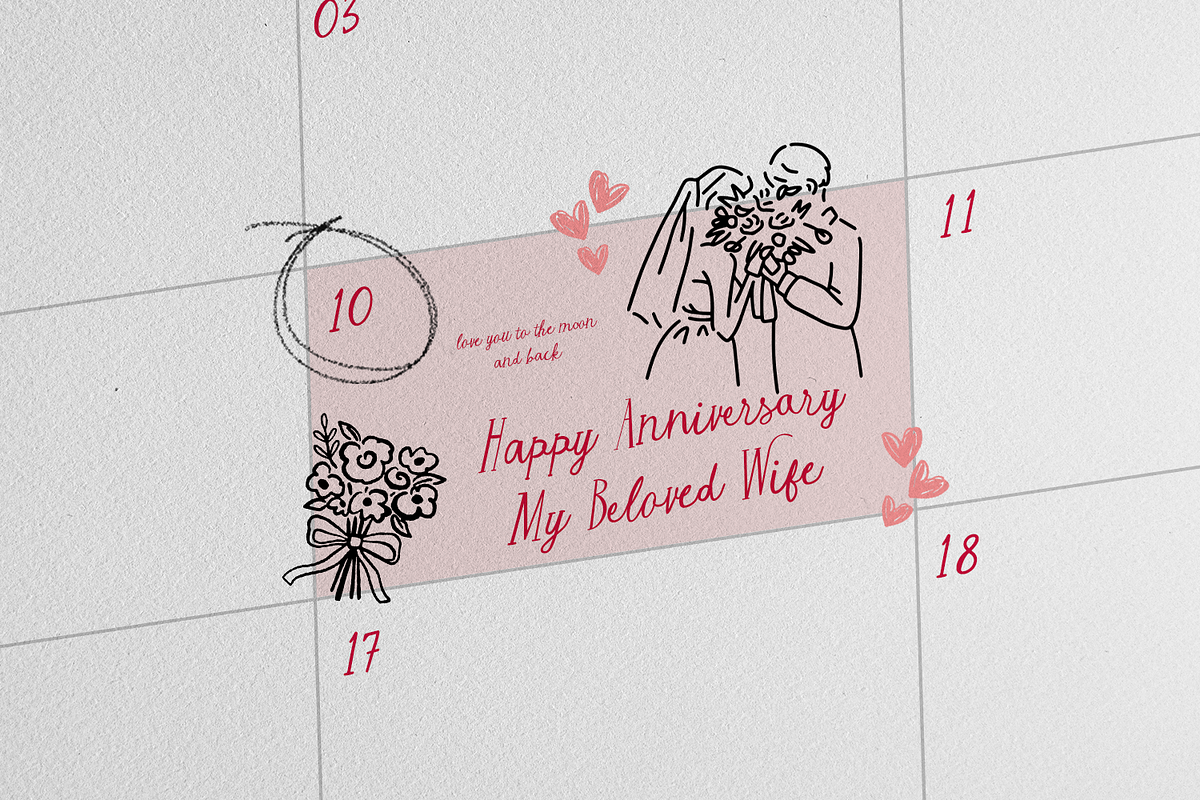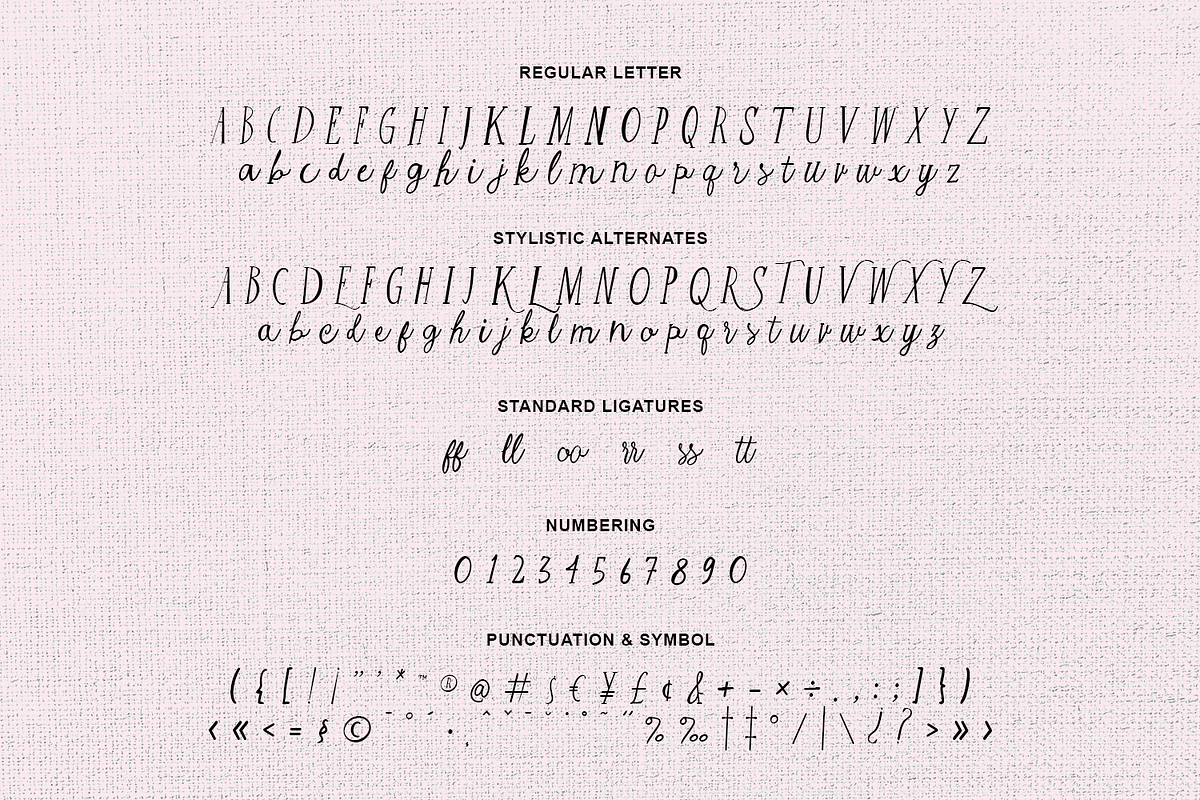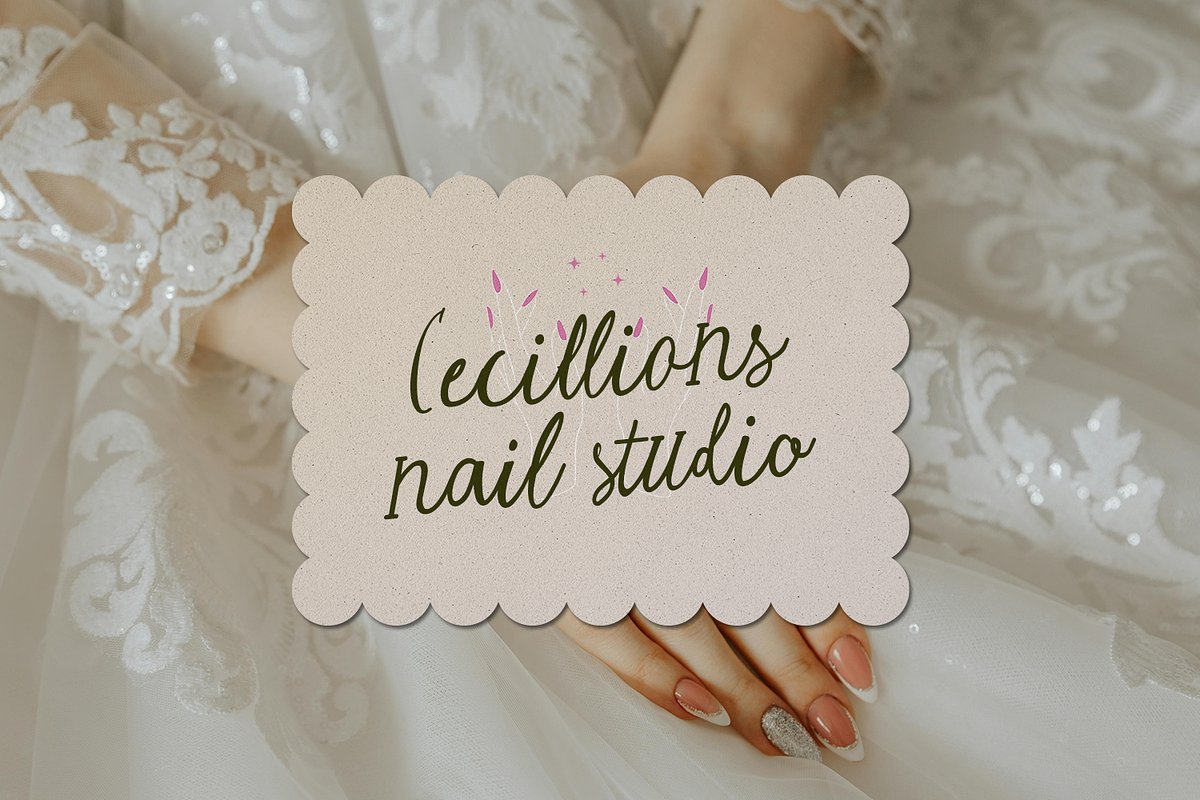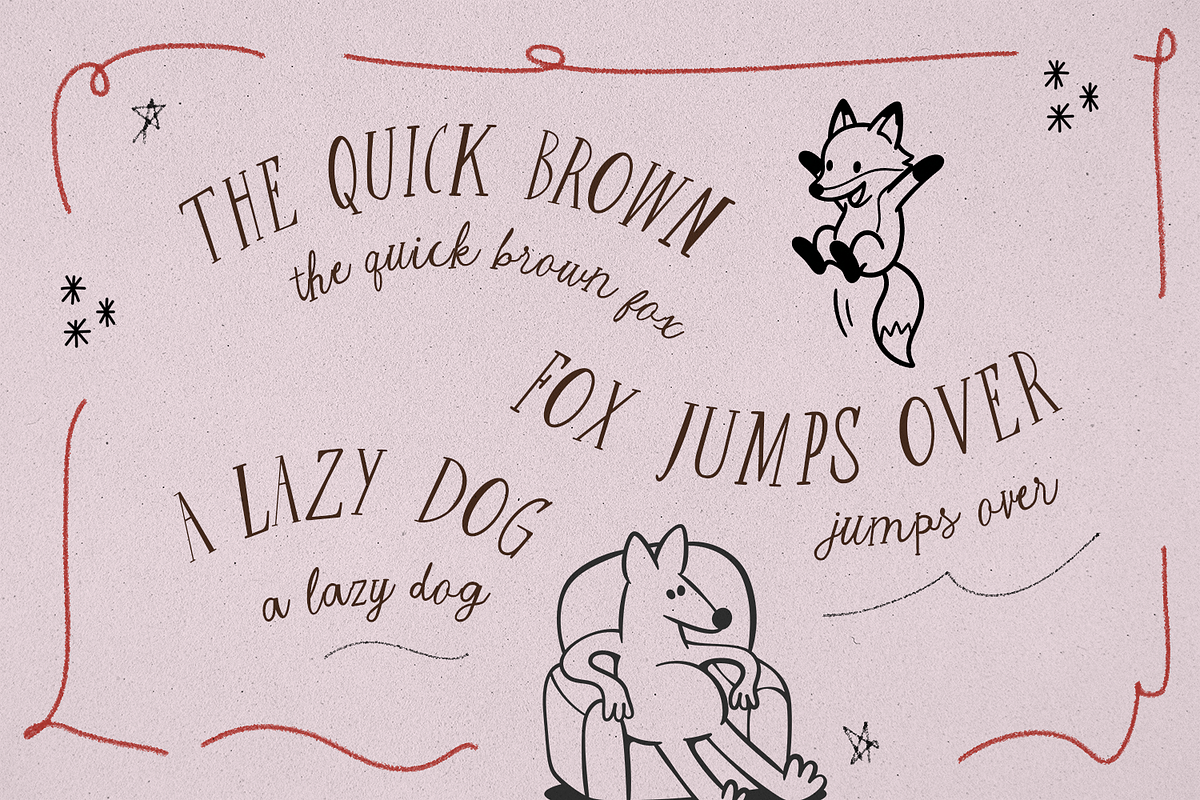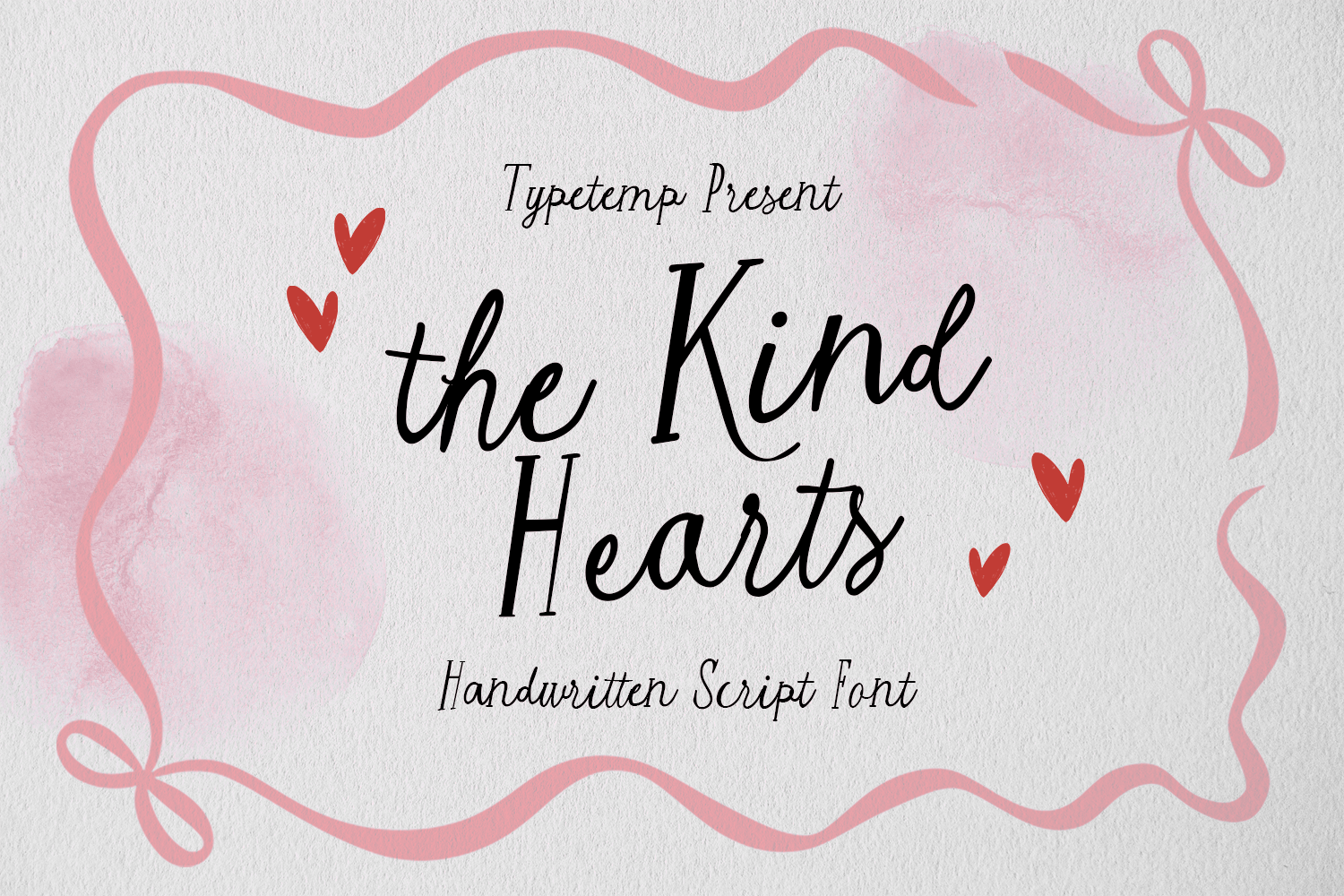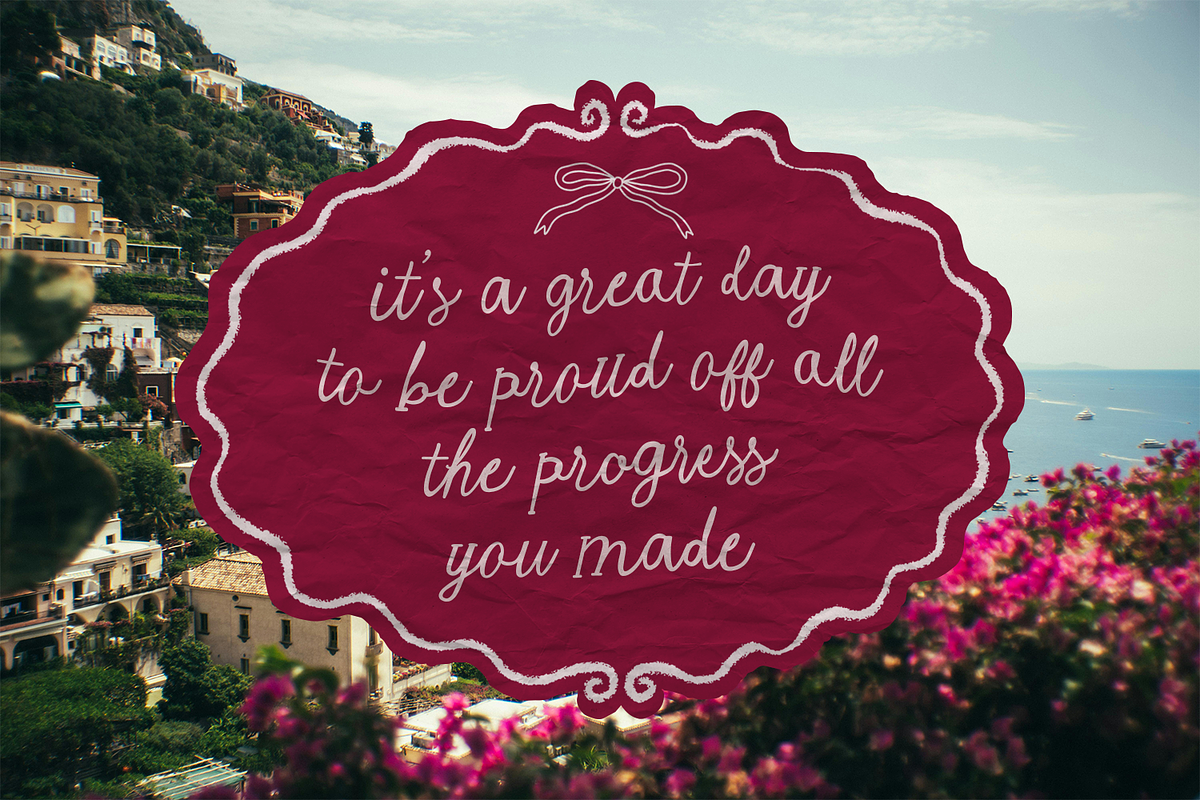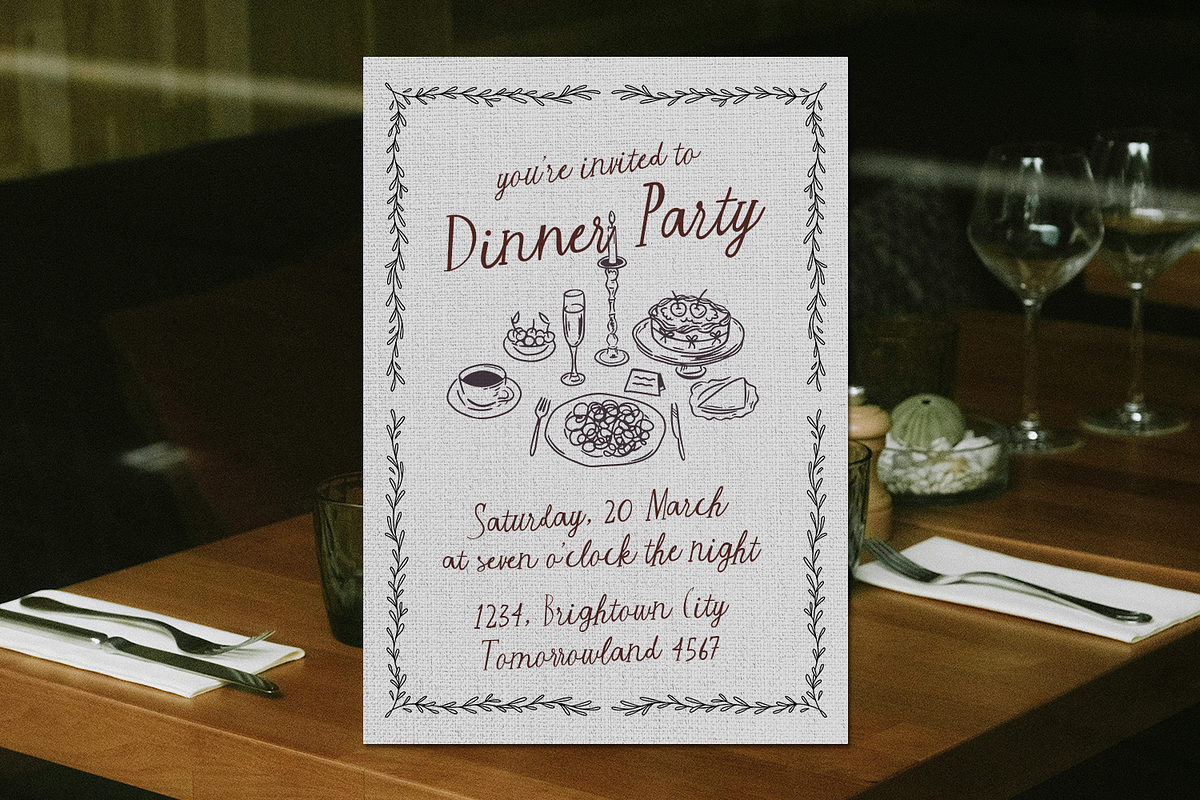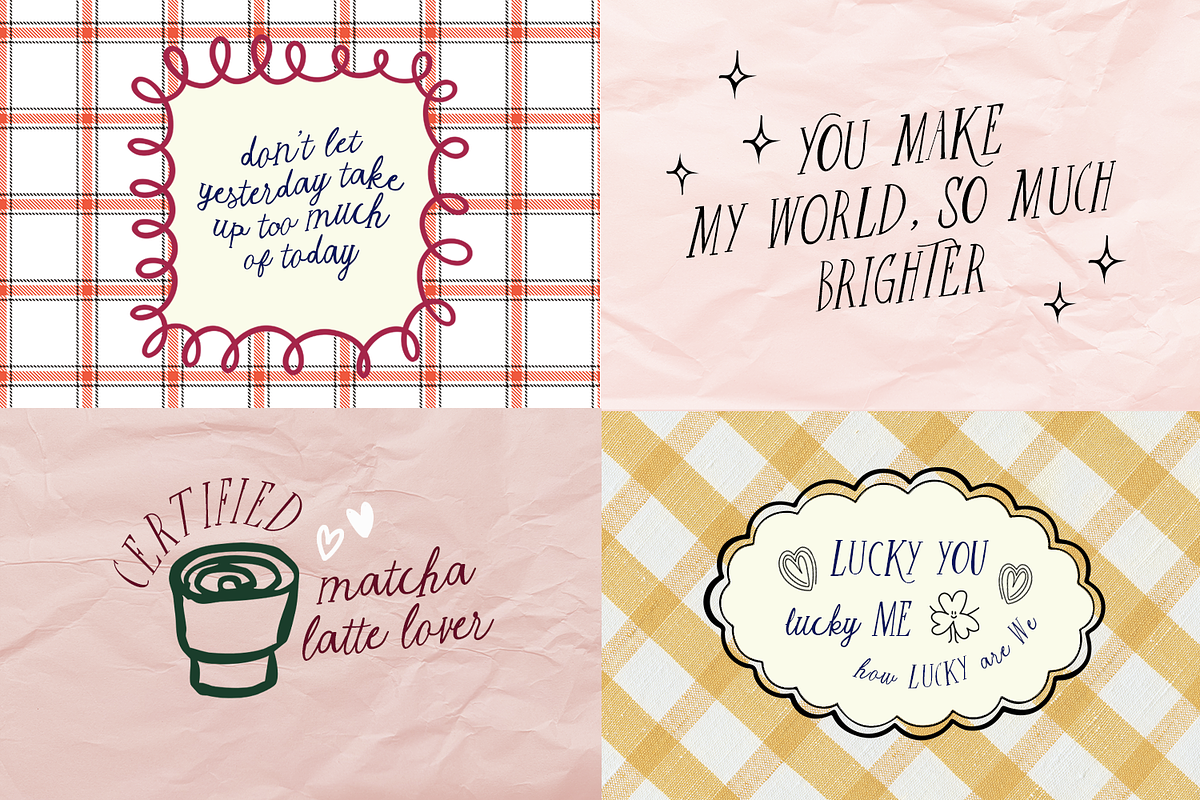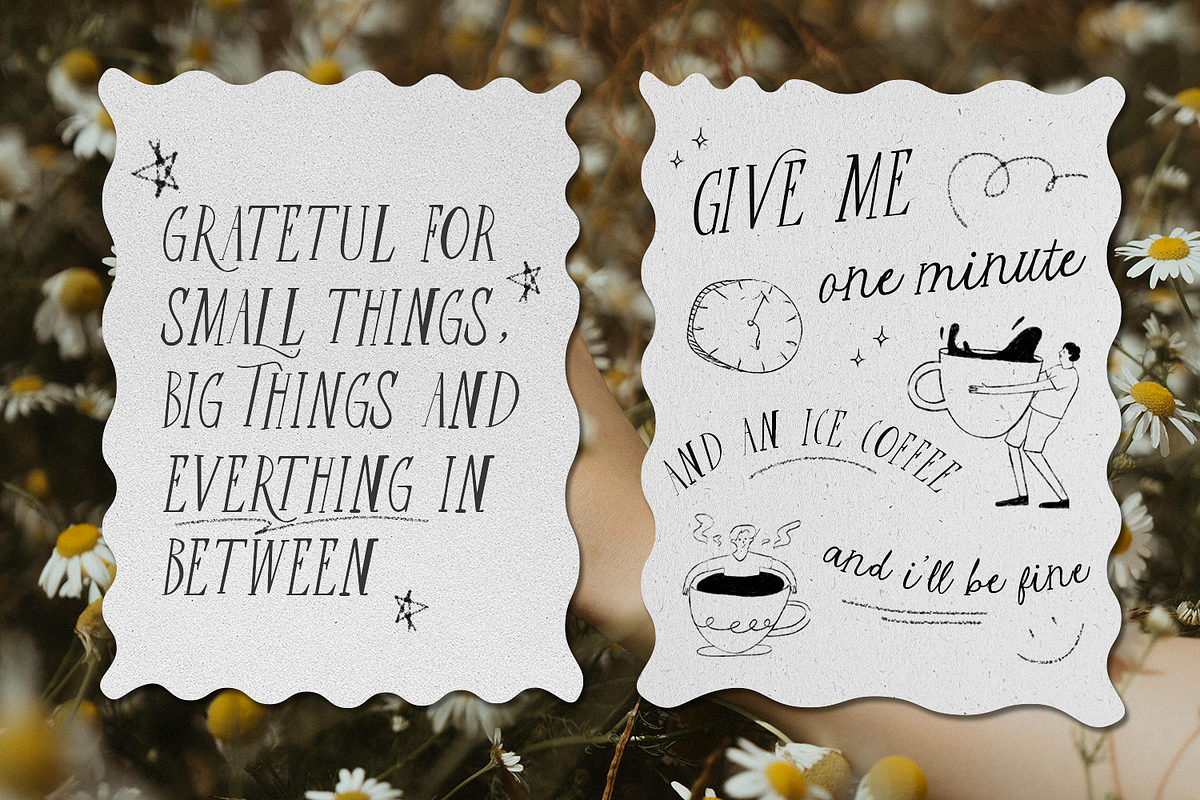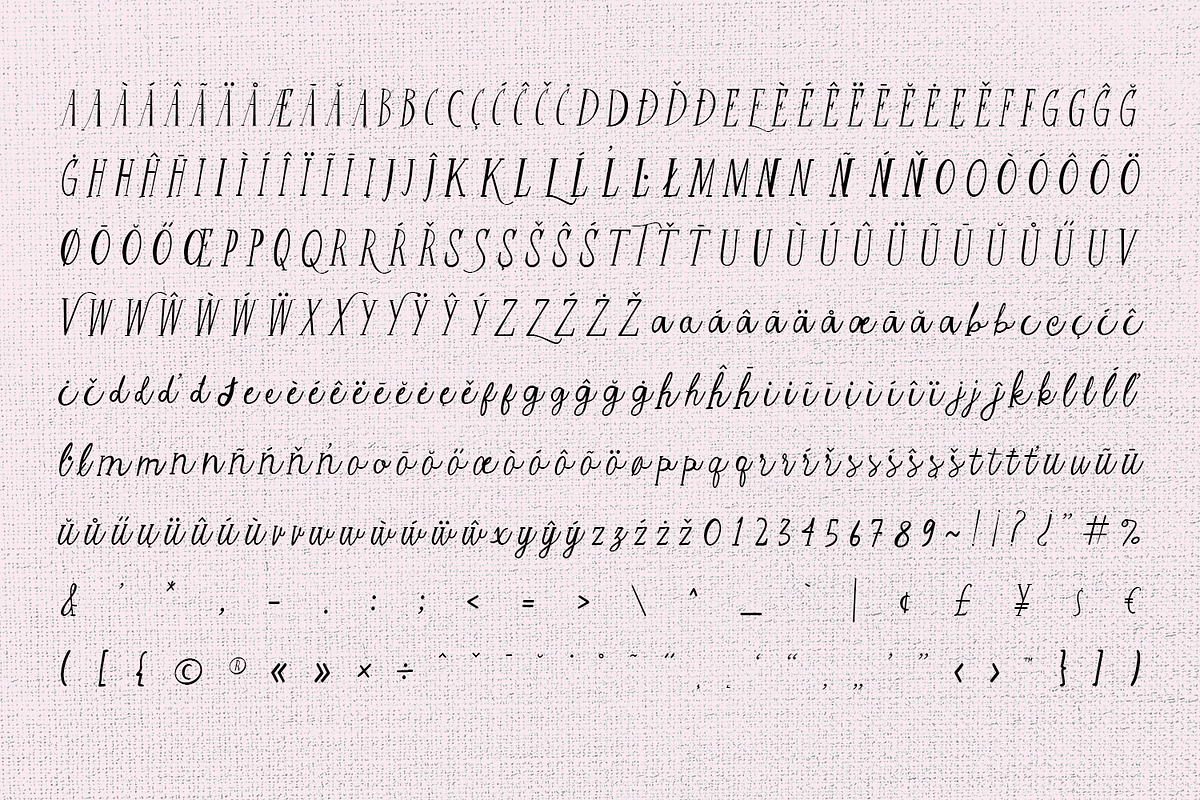
The Kind Hearts - Handwritten Font
The Kind Hearts is a sweet and elegant handwritten script font crafted to bring warmth and personality to your designs. With its flowing curves, romantic character, and authentic handwritten feel, it is perfect for wedding invitations, branding, greeting cards, social media posts, and heartfelt creative projects.
Full multilingual character set
OpenType features such as ligatures and alternates